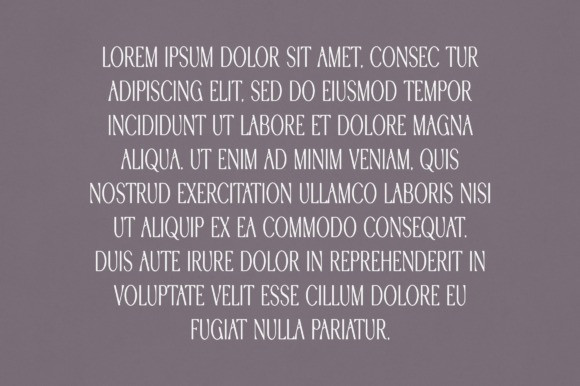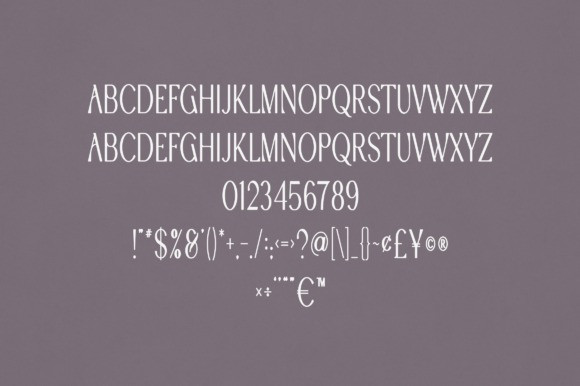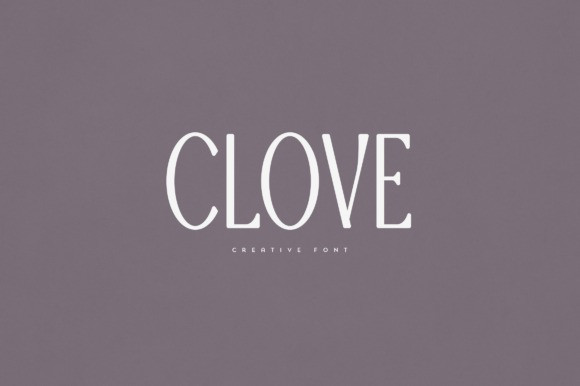
Clove Font
Clove Font is an elegant and versatile display font that will make your typography truly unique! It will enchant every logo, branding, headline, or plain text!